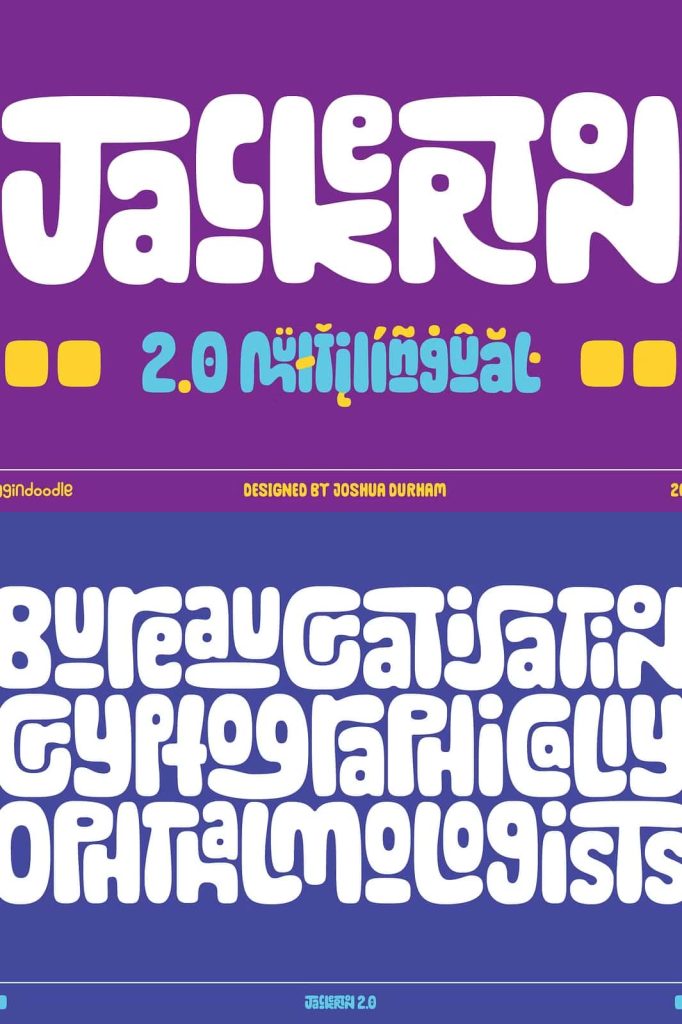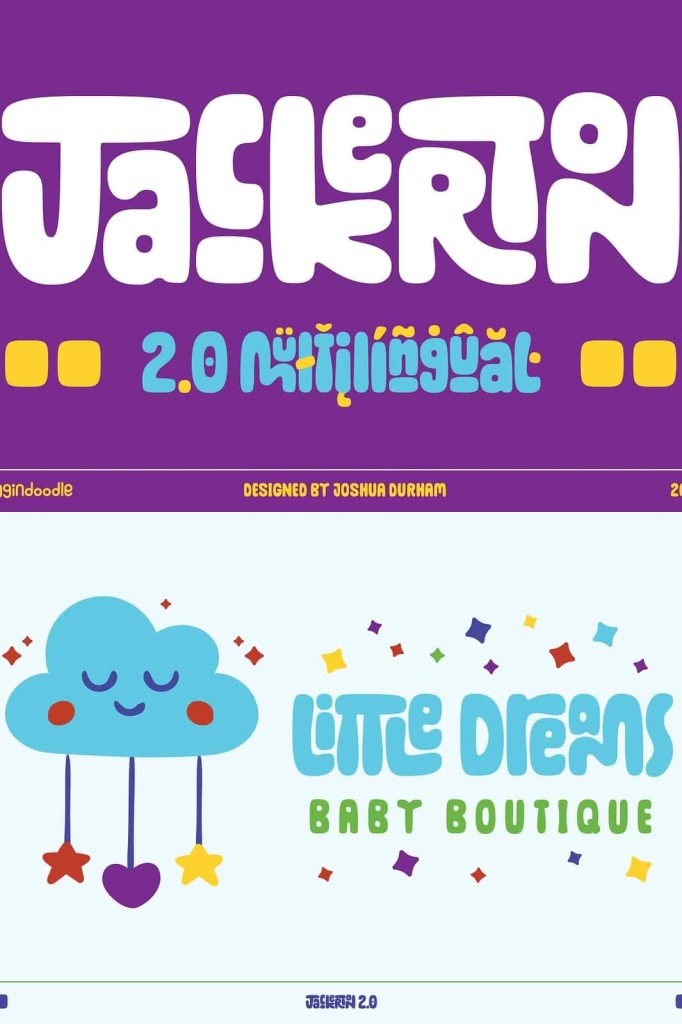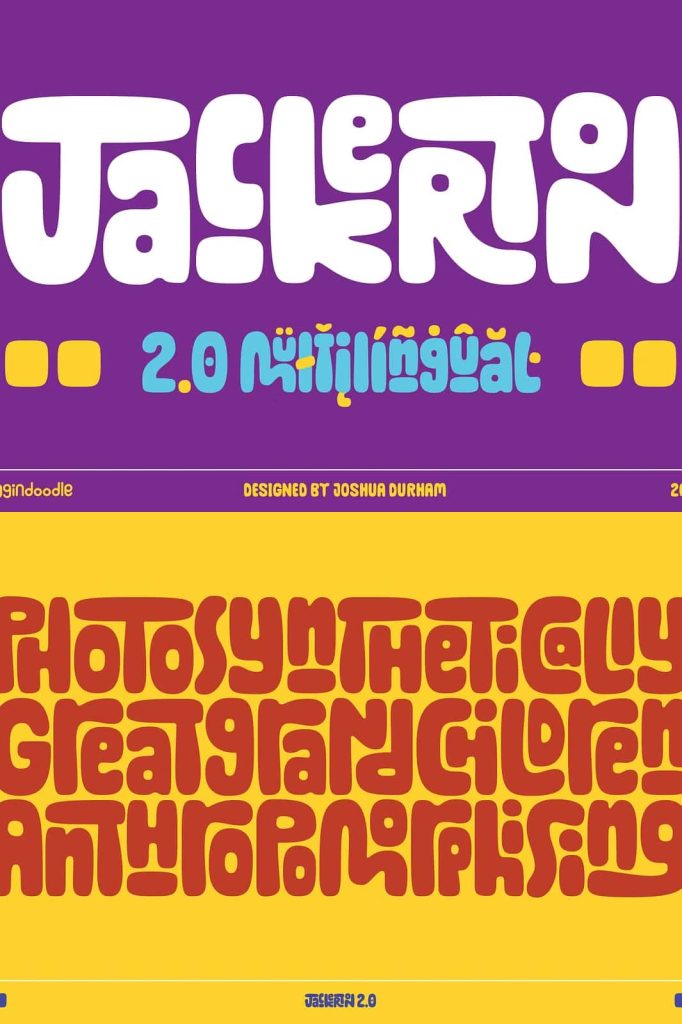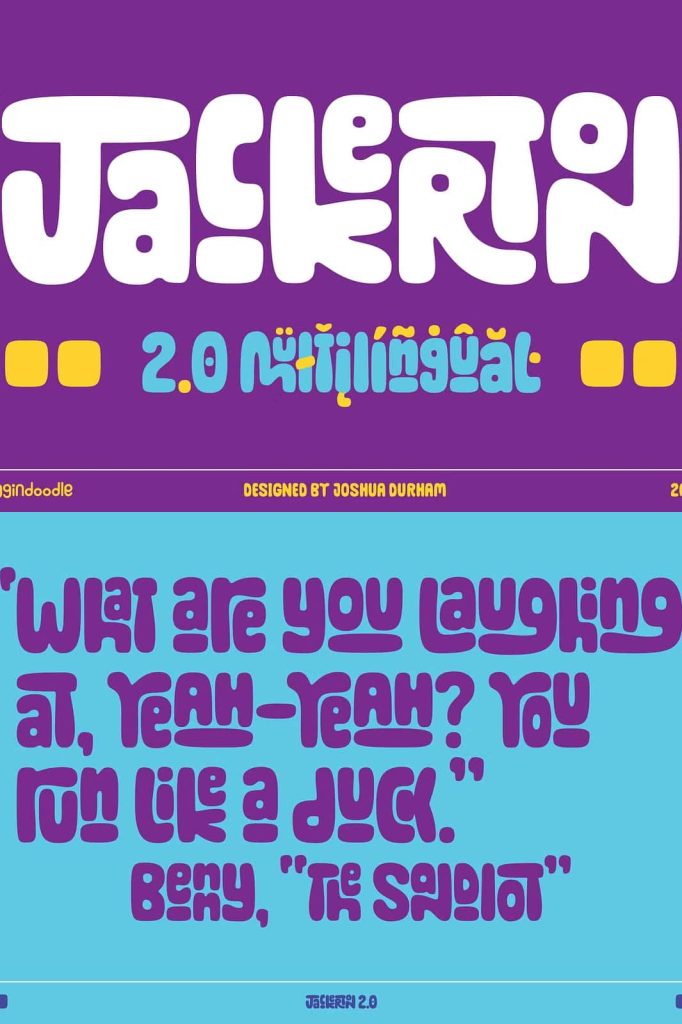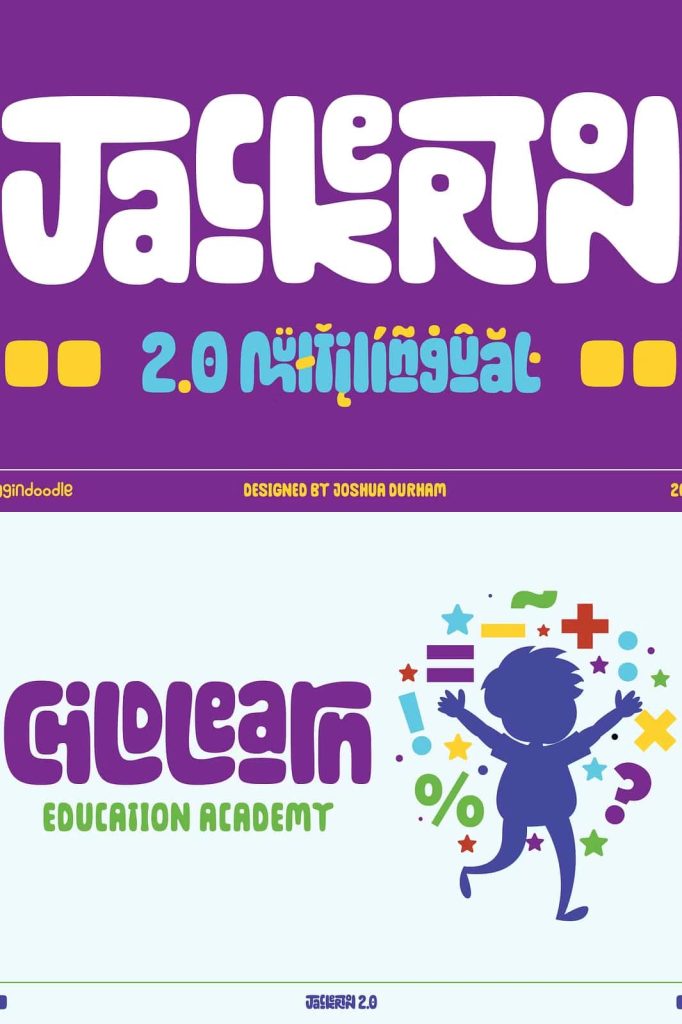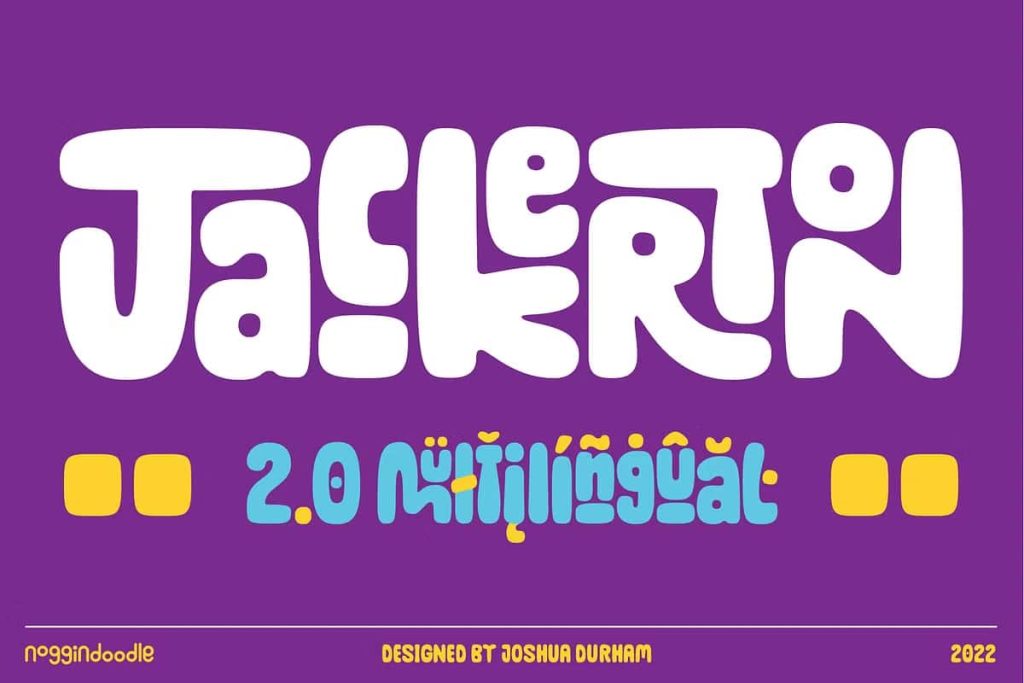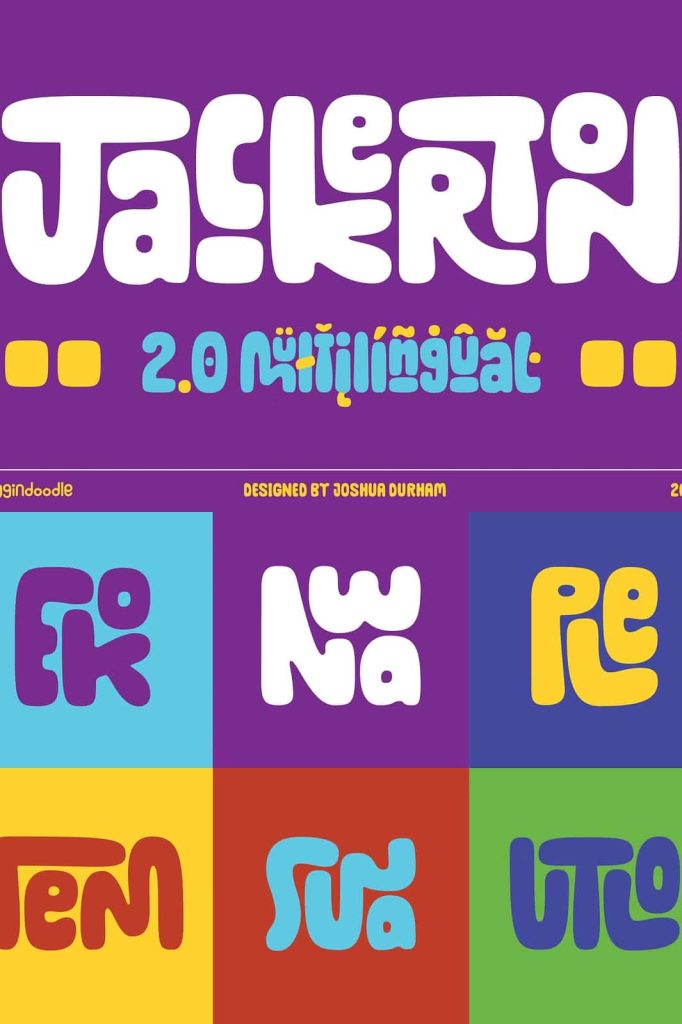
Jackerton – A Creative Ligature Font for Modern Typography
Jackerton is a distinctive ligature font created to bring stylish and sophisticated typography to modern design projects. This typeface uses advanced OpenType ligature substitutions to transform ordinary text into elegant and visually refined lettering. Instead of relying only on standard characters, Jackerton intelligently replaces specific letter combinations with beautifully crafted ligatures that improve the flow and appearance of words.
The result is typography that looks smooth, connected, and carefully designed. These ligatures create harmony between letters, allowing words to feel more natural and visually balanced. Designers who want to elevate their typography will appreciate the thoughtful craftsmanship behind every character and ligature within the Jackerton font.
Because the font focuses heavily on ligature features, it performs best in professional design environments where OpenType functionality is fully supported. With the right design software, Jackerton unlocks a wide range of creative possibilities that help designers produce elegant and highly customized typography.
A Ligature Font Built with OpenType Features
Jackerton is built around the concept of ligature substitution. Ligatures are special characters that replace common letter combinations with a single unified design. Instead of displaying separate letters that may feel disconnected, ligatures merge these letters into a smoother and more visually pleasing form.
This design technique has been used in traditional typography for centuries, especially in high-quality editorial and calligraphic typefaces. Jackerton brings this classic typographic concept into a modern design environment by offering a variety of carefully crafted ligatures that automatically activate when OpenType features are enabled.
These ligatures improve the visual rhythm of the text and create a more polished appearance. Words appear balanced, professional, and aesthetically pleasing. Designers can use this feature to create typography that feels custom-made rather than generic.
Designed for Professional Design Applications
Create Elegant and Custom-Looking Typography
Jackerton allows designers to create typography that feels unique and handcrafted. Because the ligatures connect letters in creative ways, the final text appears more dynamic and visually engaging than standard typography.
This feature makes the font particularly useful for branding, logo design, and display typography. When used in logos, ligatures can transform simple brand names into stylish wordmarks that look custom designed. The smooth connections between letters create an elegant visual identity that helps brands stand out.
Designers also use ligature fonts in editorial layouts, posters, packaging, and marketing materials. The enhanced letter connections help headlines and titles appear more refined and professional.
Perfect for Branding, Logos, and Display Text
Jackerton performs exceptionally well when used in display typography. The distinctive ligatures and carefully crafted characters give headlines and logos a memorable appearance. Designers can build strong visual impact by using the font in titles, product names, or promotional graphics.
Brands that want to appear creative, stylish, and sophisticated can benefit greatly from ligature-based typography. The unique letter combinations create a sense of originality that helps visual identities feel more distinctive.
Because the ligatures improve the flow of text, the font also works well in elegant packaging designs, editorial titles, and artistic typography compositions.
Create Stunning Typography with Jackerton
If you want to create stylish, professional, and visually refined typography, Jackerton offers the perfect solution. Its ligature-driven design helps transform ordinary text into elegant lettering that stands out in logos, headlines, and branding projects. By combining modern design tools with advanced typographic features, Jackerton empowers designers to produce truly memorable typography.